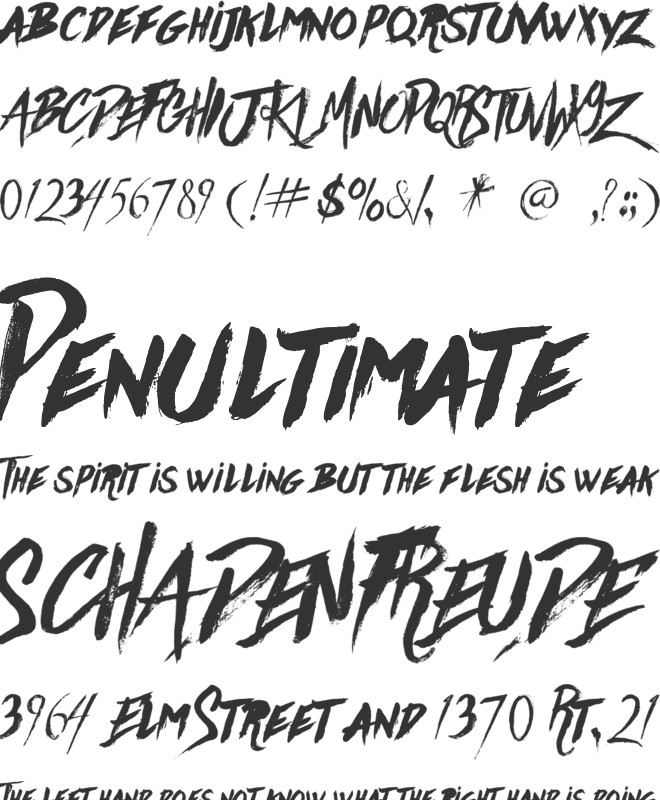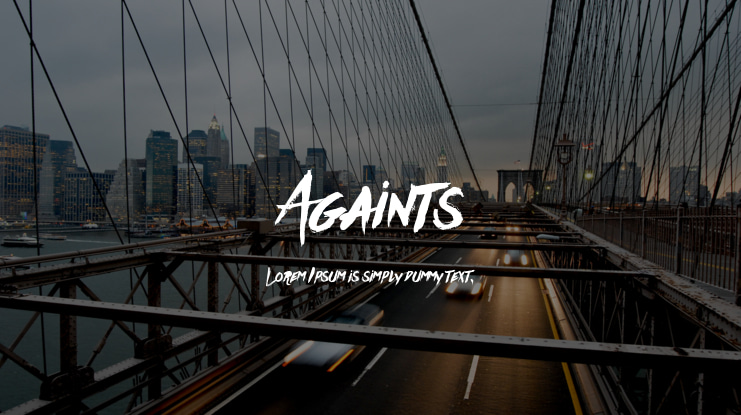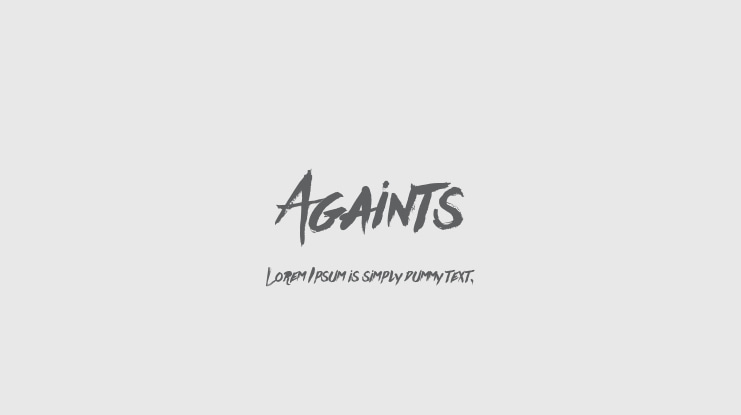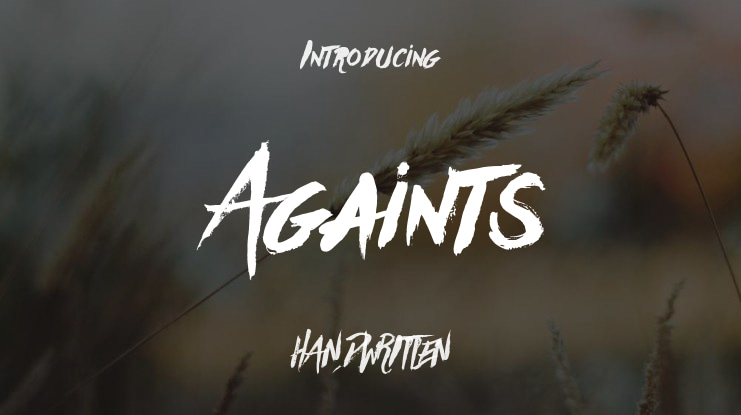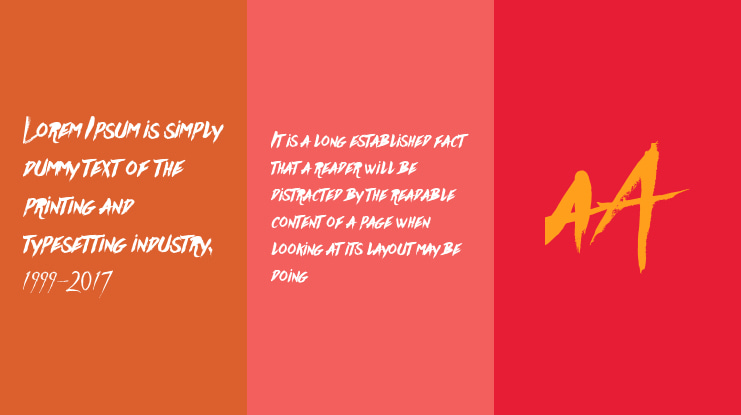
Againts Font
ramandhani nugraha (celcius design)
Against Typeface was inspired by ink and hand-drawn brushstrokes to create a natural, messy feel. With alternate glyphs in some characters, you can craft stylish designs. Additional ligatures enhance the display, making it ideal for labeling, clothing, movie scenes, film titles, gigs, or album covers.